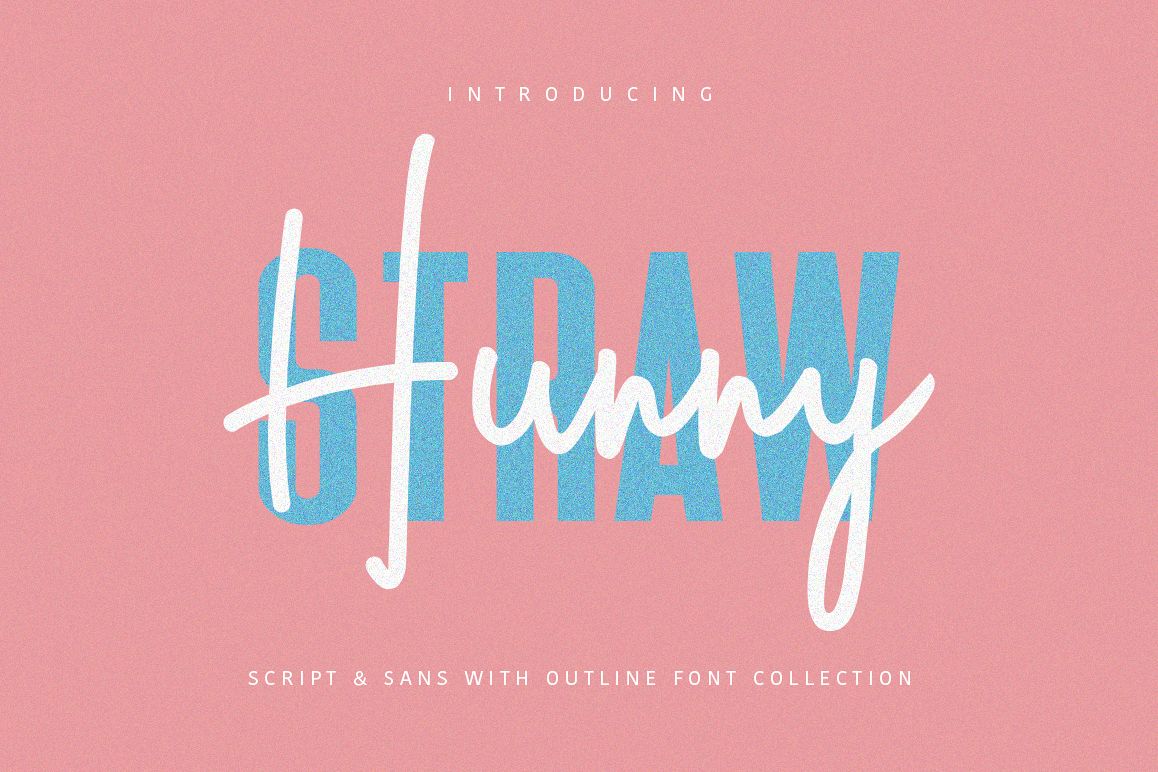
Hunny Straw Font Collection
Give your designs an authentic handcrafted feel. Hunny Straw Font Collection is perfectly suited to signature, stationery, logo, typography quotes, magazine or book cover, website header, clothing, branding, packaging design and more.